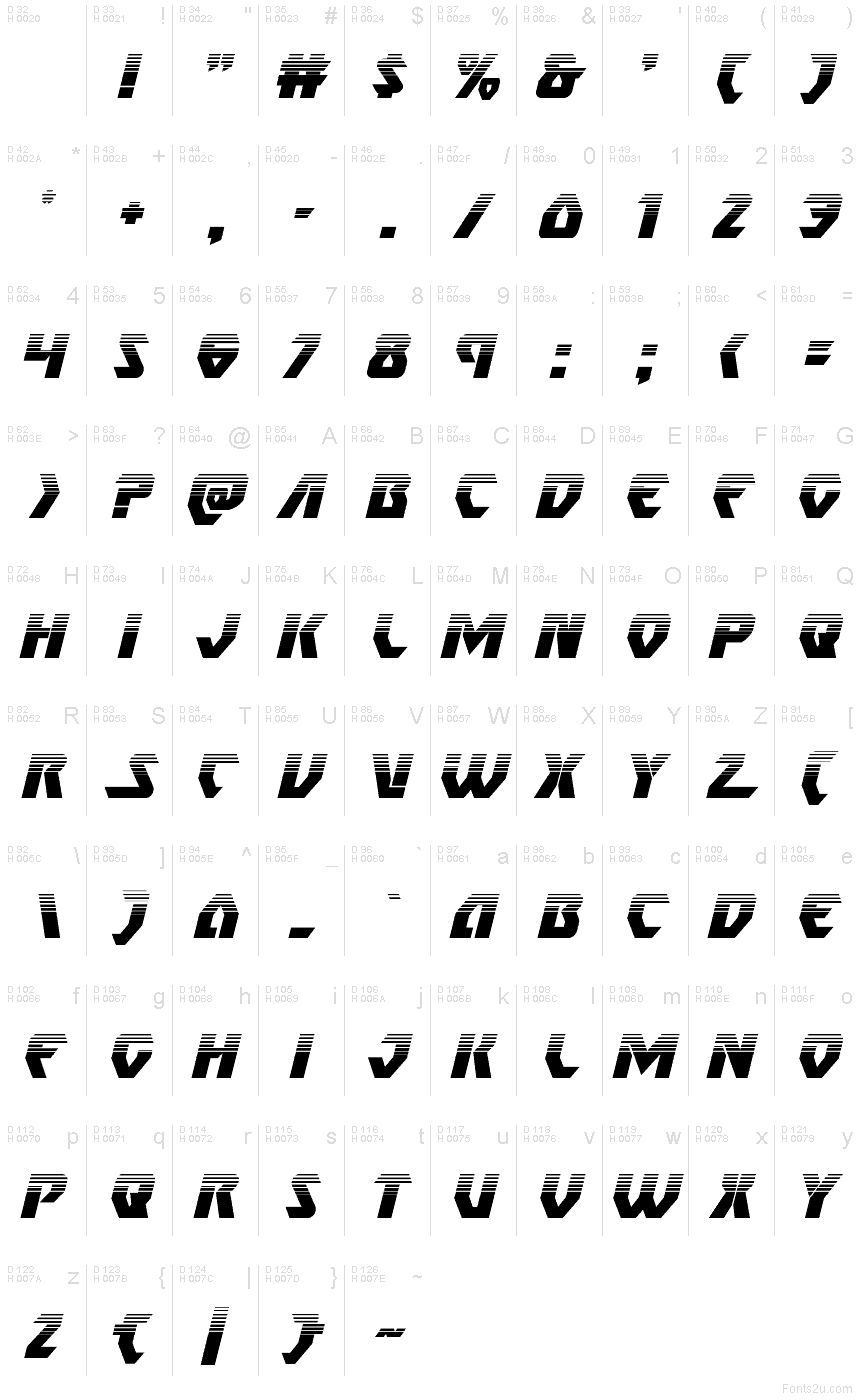
Ion Cannon Halftone Italic
Ion Cannon Halftone Italic font by Iconian Fonts is a sleek display font with futuristic vibes. Its unique geometric letters remind us of old-school playful action-adventure video games and their typography adventures, a digital spin which is perfectly crossed here with its stencil appearance.
To be used in print, web, or motion projects, this free techno display font would add charm to cartoons logos, books covers and posters with science-fiction and high-tech themes. Go further by using it for product design featuring robots or lasers, in addition to comic book cover designs.